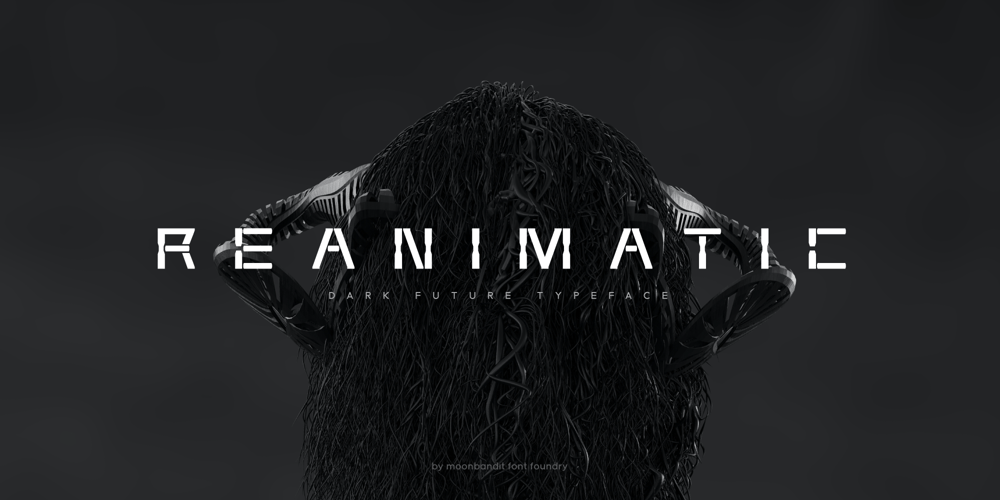
MBF Reanimatic Font Family was designed by Bramaji Dipa Manggala and published by Moonbandit. MBF Reanimatic contains 1 styles and family package options. Reanimatic, a futuristic scifi font. This typeface is a modern display sans serif packed with a reimagination of a dark future technology. This font is perfect for a big size display or title and even logo.